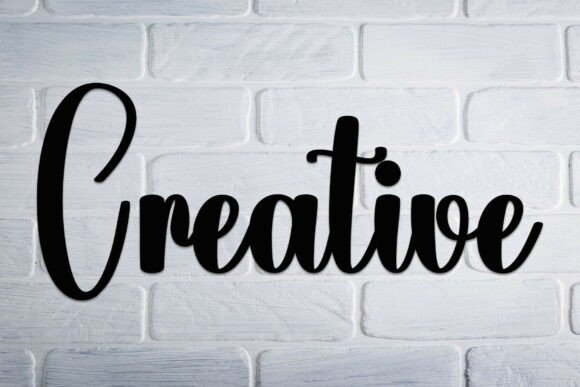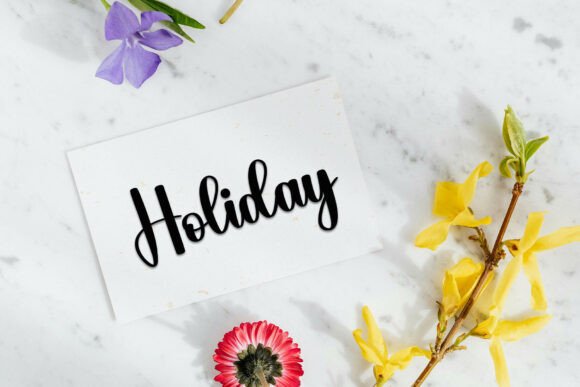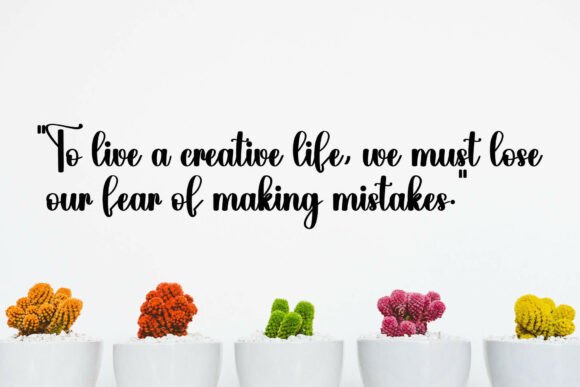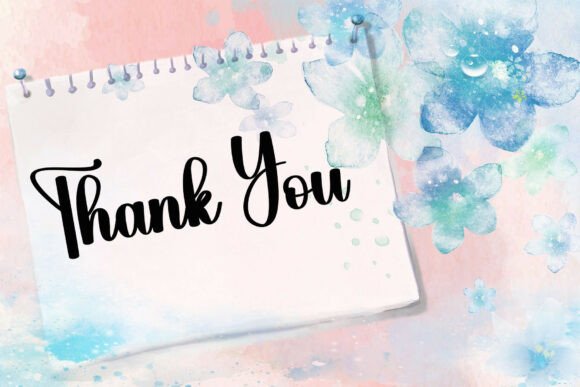
Dancer Font: Elevate Your Designs with a Sweet and Cursive Handwritten Style
Are you looking for a font that can add a touch of elegance and romance to your designs? Look no further than the Dancer Font, a beautiful and cursive handwritten font that is perfect for a variety of design projects. In this article, we’ll take a closer look at the Dancer Font, its features, and how you can use it to elevate your designs.
What is Dancer Font?
Dancer Font is a sweet and cursive handwritten font that is designed to add a joyful and romantic touch to your designs. Its gentle and flowing curves make it perfect for creating elegant and sophisticated designs that are sure to impress. Whether you’re working on a branding project, designing a logo, or creating wedding materials, the Dancer Font is a great choice.
Features of Dancer Font
The Dancer Font has several features that make it a great choice for designers and crafters. Some of its key features include:
- Sweet and Cursive Handwritten Style: The Dancer Font has a beautiful, cursive handwritten style that is perfect for creating elegant and sophisticated designs.
- Gentle and Flowing Curves: The font’s gentle and flowing curves make it perfect for creating designs that are romantic and joyful.
- Versatile: The Dancer Font is versatile and can be used on a variety of design projects, including branding, logos, wedding materials, greeting cards, and more.
- Elegant and Casual: The font is elegant and sophisticated, yet still casual and approachable, making it perfect for designs that need to be both fancy and laid-back.
Use Cases for Dancer Font
The Dancer Font is perfect for a variety of design projects, including:
- Branding: Use the Dancer Font to create a beautiful and elegant brand identity that will set your business apart.
- Logos: The font is perfect for creating logos that are sophisticated and elegant.
- Wedding Materials: Use the Dancer Font to create beautiful wedding invitations, programs, and other materials that will make your special day even more memorable.
- Greeting Cards: The font is perfect for creating greeting cards that are elegant and sophisticated.
- Fashion and Lookbooks: Use the Dancer Font to create beautiful and elegant fashion designs and lookbooks.
- Marketing Promotions: The font is perfect for creating marketing materials that are sophisticated and elegant.
Tips for Using Dancer Font
Here are a few tips for using the Dancer Font in your designs:
- Use it with a Simple Background: The Dancer Font is elegant and sophisticated, so it’s best to use it with a simple background that won’t compete with the font.
- Experiment with Different Sizes and Colors: The font looks great in a variety of sizes and colors, so don’t be afraid to experiment and find the perfect combination for your design.
- Pair it with Other Fonts: The Dancer Font pairs well with other fonts, so feel free to get creative and find the perfect combination for your design.
The Dancer Font is a beautiful and elegant cursive handwritten font that is perfect for a variety of design projects. Its sweet and gentle curves make it perfect for creating designs that are romantic and joyful. Whether you’re working on a branding project, designing a logo, or creating wedding materials, the Dancer Font is a great choice. With its versatility and elegance, it’s sure to elevate your designs and make them stand out.
In conclusion, the Dancer Font is a beautiful and elegant font that is perfect for designers and crafters who want to add a touch of elegance and romance to their designs. Its versatility, elegance, and sweet cursive handwritten style make it a great choice for a variety of design projects.